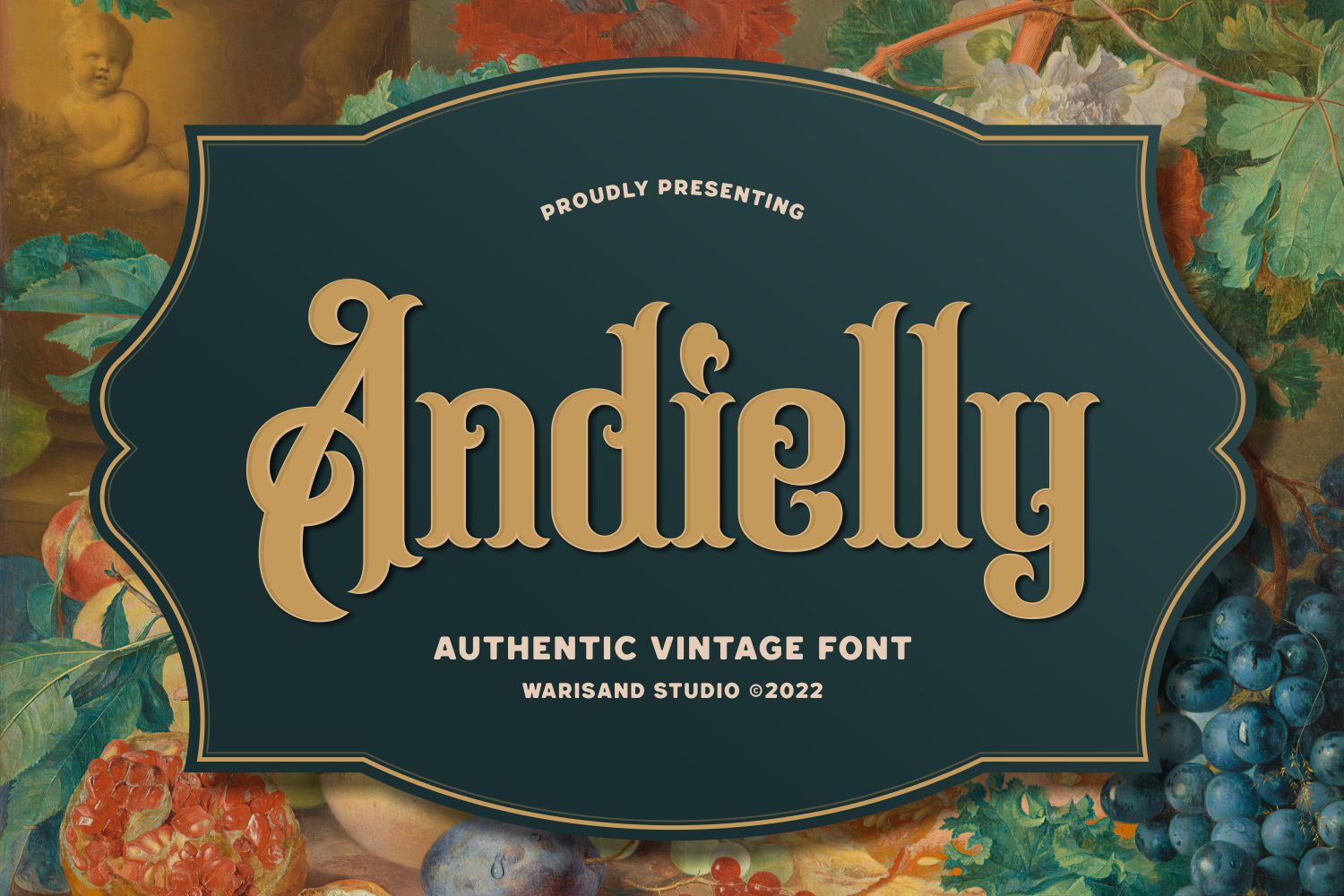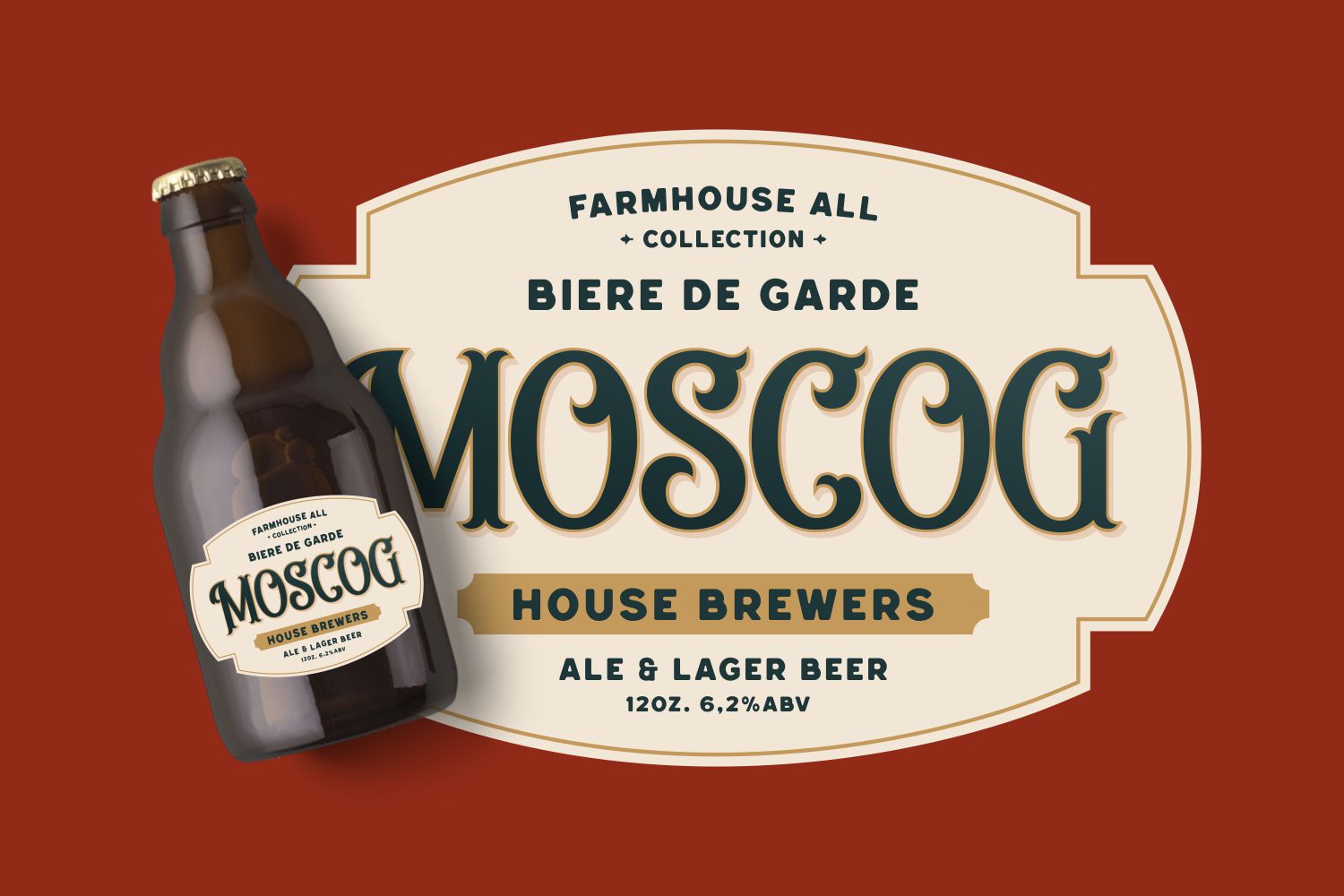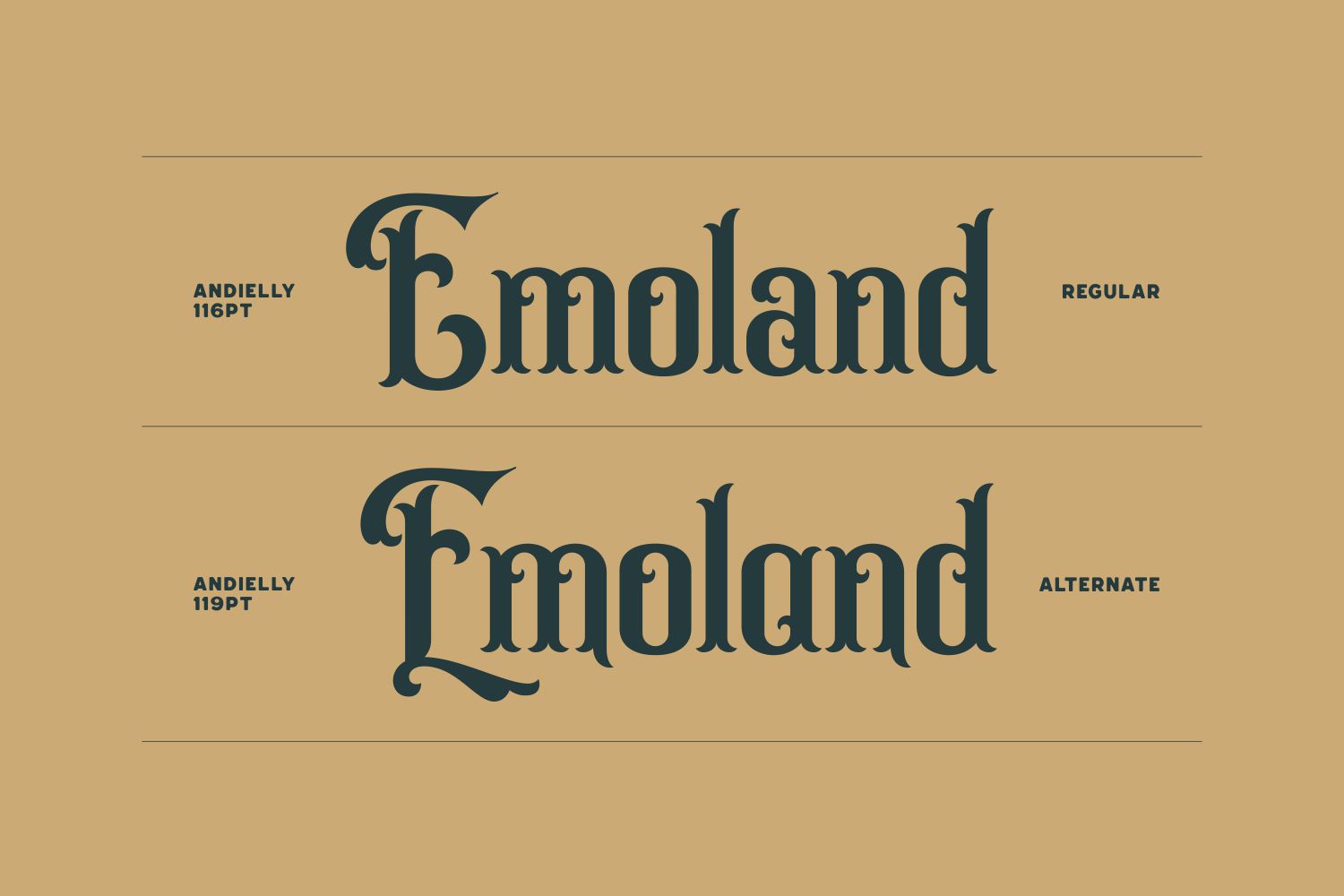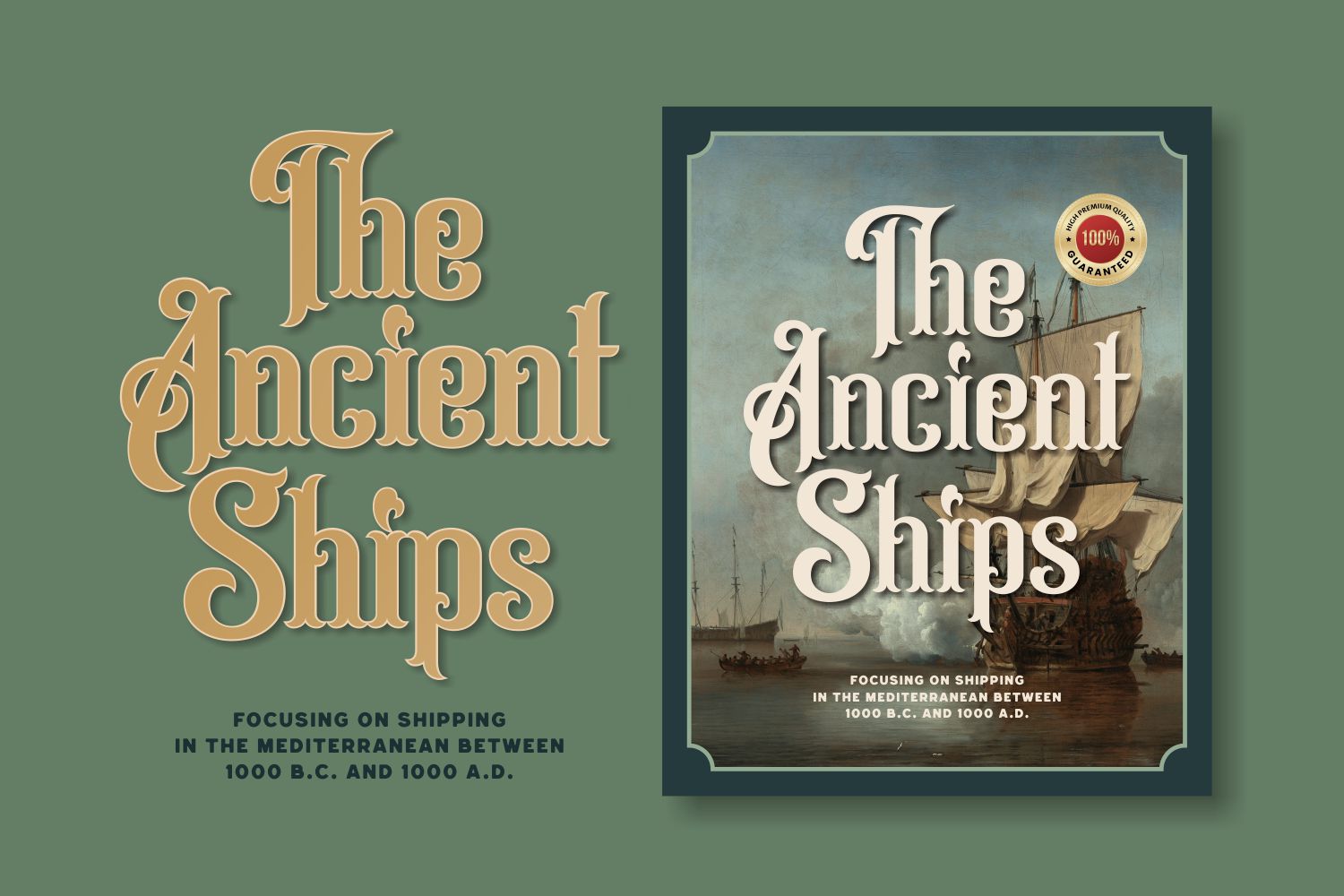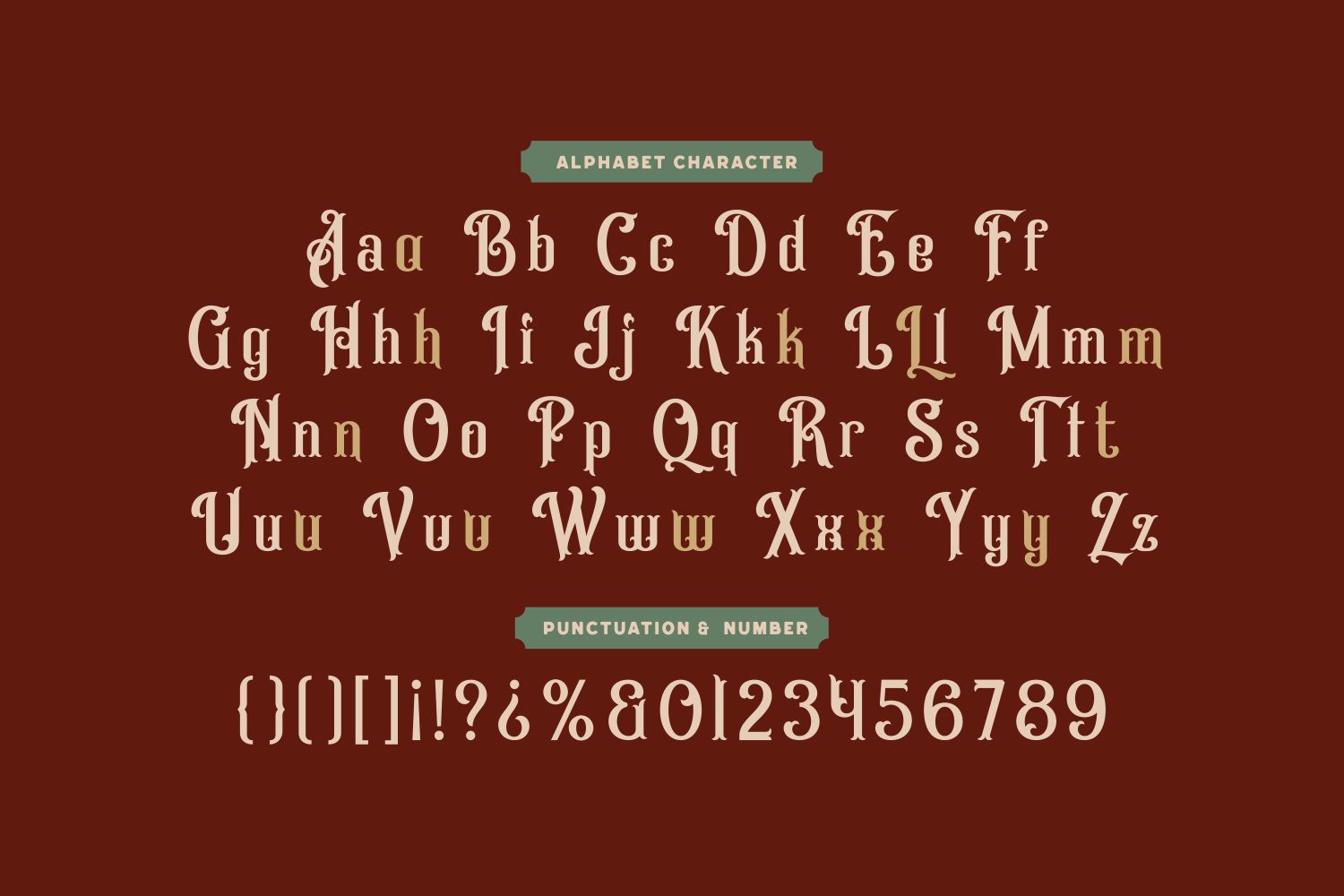
Andielly is an authentic vintage display font that evokes a sense of old-world charm and historical elegance. With its ornate details, dramatic swashes, and rich character design, Andielly blends heritage style with refined readability. The font includes alternates and stylistic options that allow for unique typographic combinations, perfect for creating standout headlines, editorial titles, or product labels with personality.
Whether you’re designing for beer packaging, antique book covers, or classical branding projects, Andielly offers the flexibility and flair needed to enhance your work with a timeless touch. Its strong vertical structure and detailed letterforms make it ideal for use in vintage-inspired visuals that demand sophistication and authenticity.
Andielly